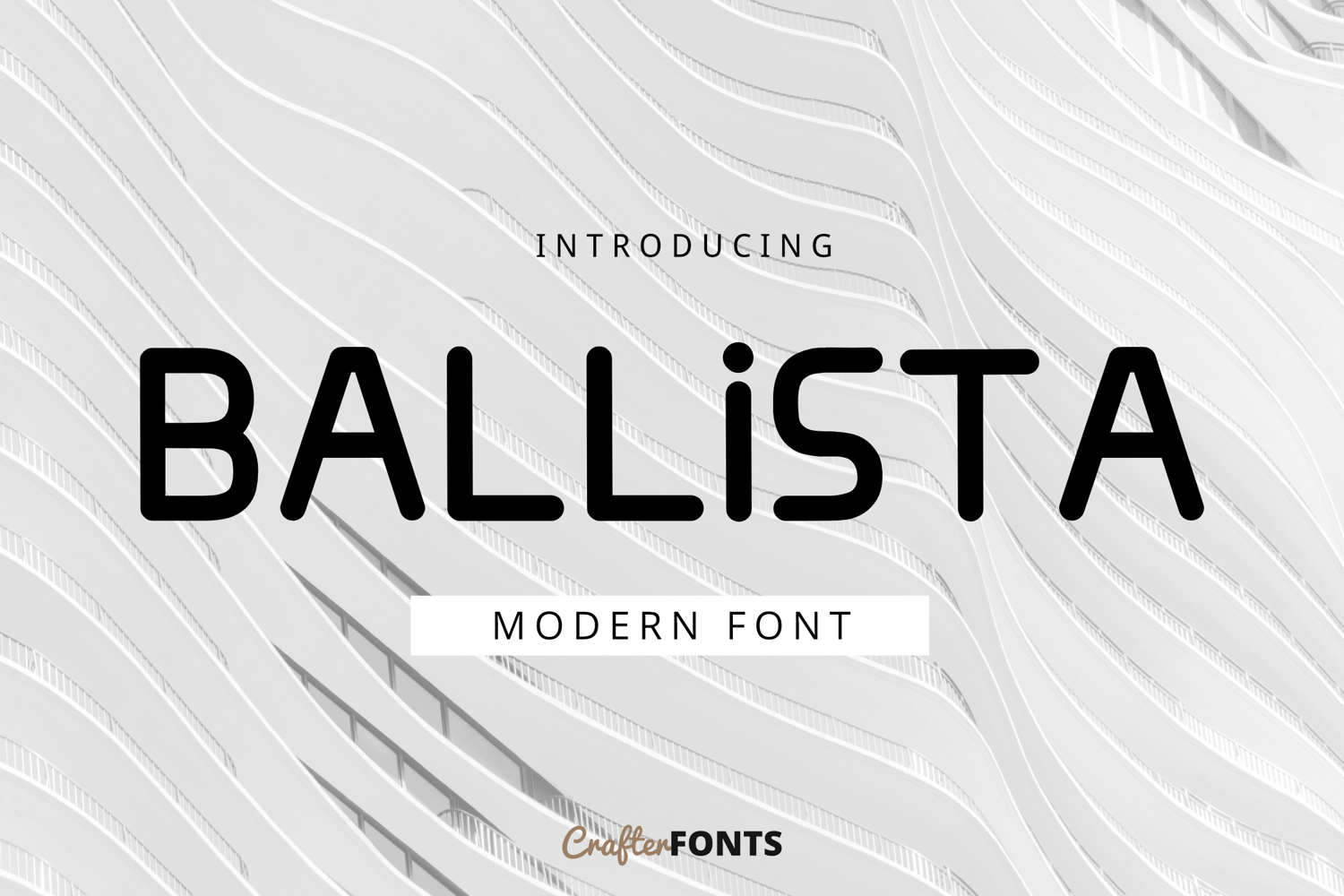
Ballista Modern Font
Ballista Regular
Ballista – Modern Sans Font
Elevate your designs with Ballista, a modern sans-serif font featuring a clean, geometric, and distinct contemporary architectural style. With its unique rounded corners and sharp, structural lines, it is perfectly suited for futuristic branding, minimalist logos, social media quotes, tech layouts, and premium packaging designs.
• Basic Latin Character Set – Includes Uppercase, clean Lowercase alternates, Numbers (0-9), and essential Punctuations/Symbols.
• Character Set & Multilingual Support – Includes Uppercase, Lowercase, Numbers, essential Punctuations, and extended character support for languages such as English, French, Spanish, German, Italian, Indonesian, and Malay.